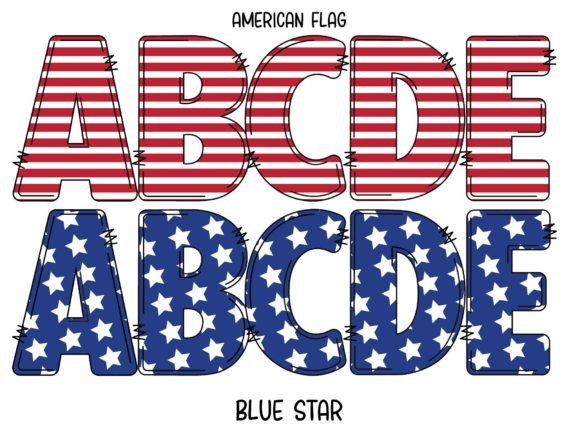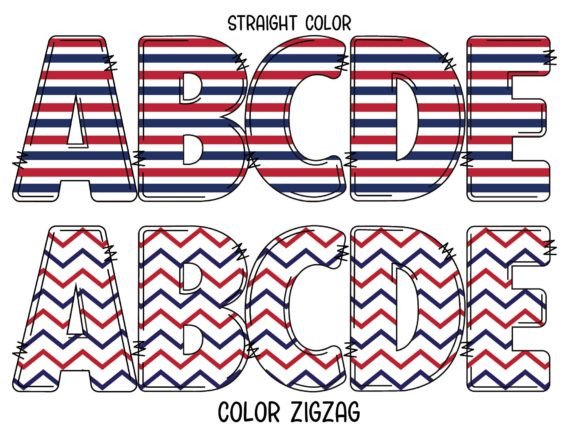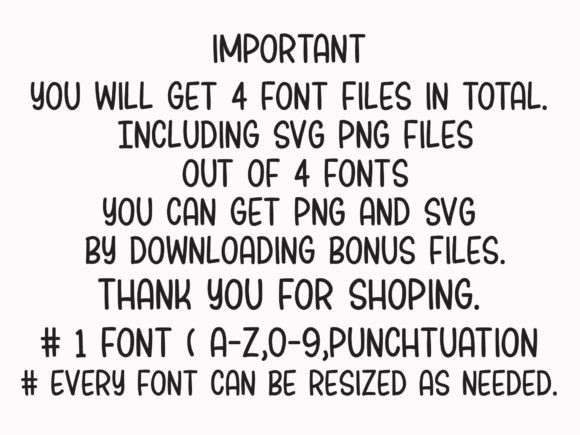
Unleash Your Patriotic Spirit with the American Flag Font
Who hasn’t been inspired by a colorful parade, a fireworks display, or a star-spangled banner waving high in the wind? For many of us, the Fourth of July is a time to celebrate freedom, community, and the spirit of America. As designers, we’re always on the lookout for creative ways to express our patriotism and connect with our audience.
Enter the American Flag Font, a unique and eye-catching typeface that’s perfect for adding a dash of red, white, and blue to your designs. Whether you’re creating stickers, mugs, t-shirts, or event invitations, this font is sure to make a statement. And for designers, it’s a valuable tool for adding a personal touch to your work, while also conveying a sense of American pride and heritage.
- Unique Characteristics: The American Flag Font features a distinctive red, white, and blue color scheme, with bold and striking lines that evoke the spirit of the American flag.
- Font Style: This font is a sans-serif, all-capitals font, with a bold and modern design that is perfect for use in headings, titles, and other display typography.
Designer Review: American Flag Font
At first glance, the American Flag Font is a bold and patriotic choice for any project. ✨ The font’s design effectively captures the essence of the American flag, with bold red and white stripes and blue stars. It’s a great option for anyone looking to add a touch of American nostalgia to their design.
However, there are some limitations to consider. ⚠️ For one, the font may not be suitable for all types of projects, especially those that require a more subtle or neutral aesthetic. Additionally, the font’s bold design may be overwhelming for smaller text sizes.
- Bold and eye-catching design
- Effective representation of the American flag
- Great for patriotic or American-themed projects
Overall, I would give the American Flag Font 3.5 out of 5 stars. While it’s a great choice for certain types of projects, its limitations may make it less suitable for others. With some careful consideration of the project’s requirements and design goals, the American Flag Font can be a great addition to any designer’s toolkit.
The American Flag Font is ideal for patriotic designs, such as:
- Independence Day celebrations
- Memorial Day tributes
- 4th of July decorations
Remember to use the font in a tasteful and respectful manner, avoiding excessive use or misrepresentation of the American flag.